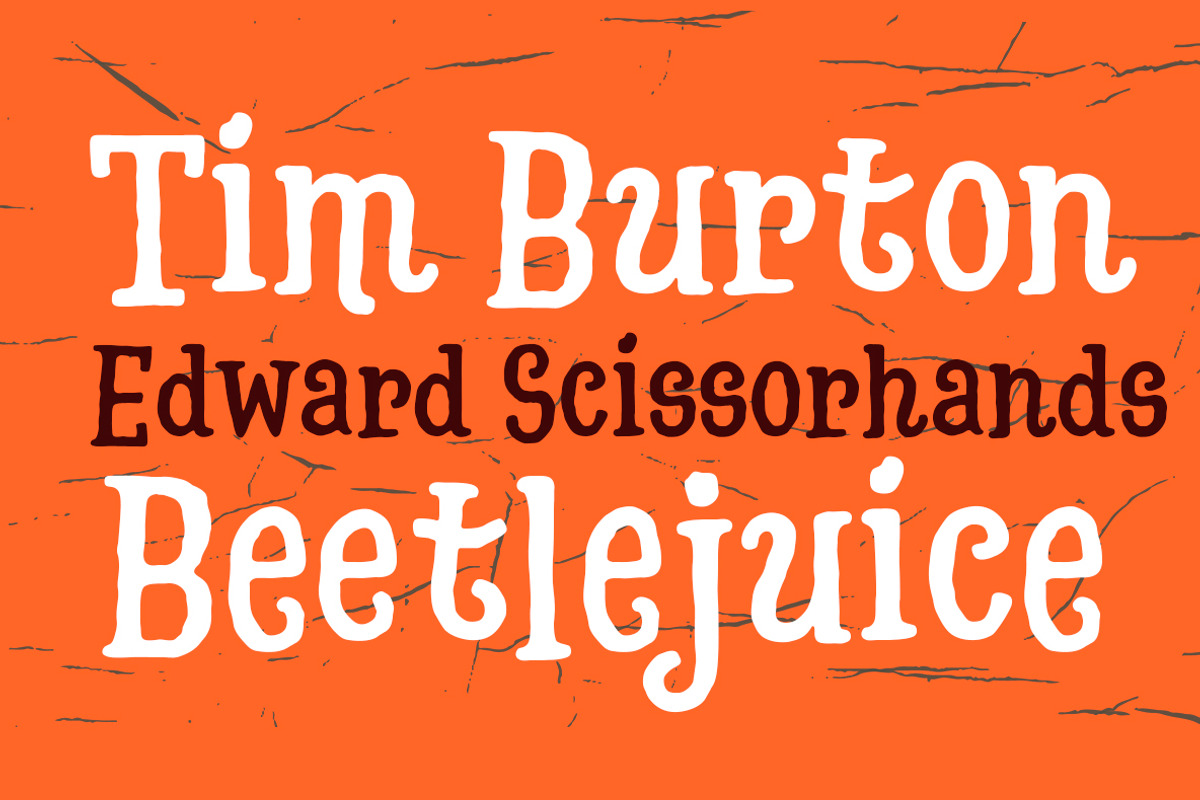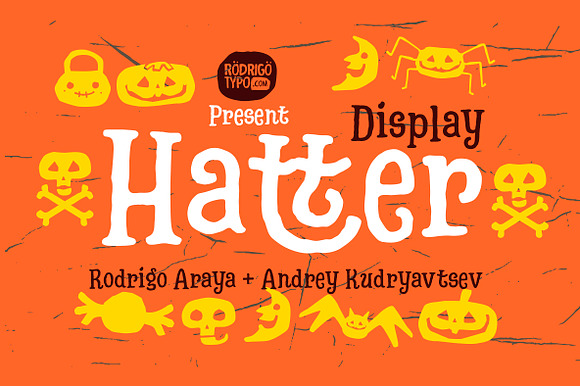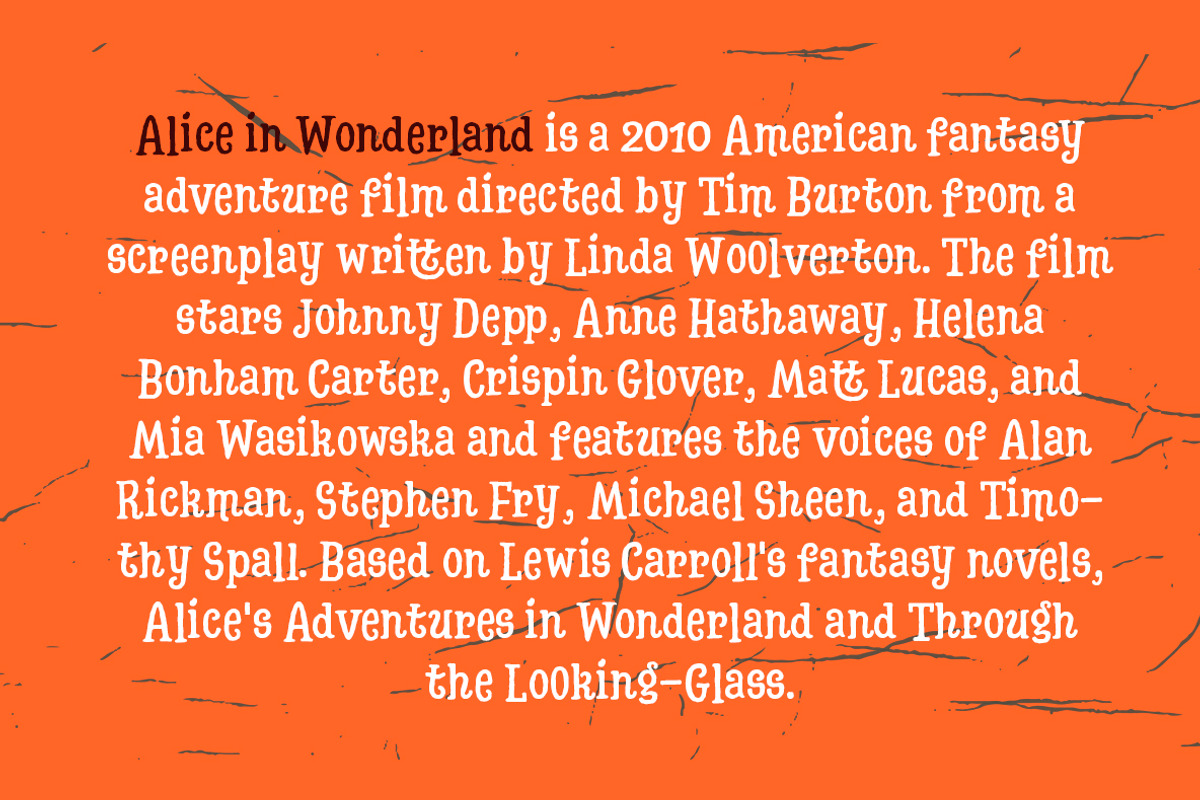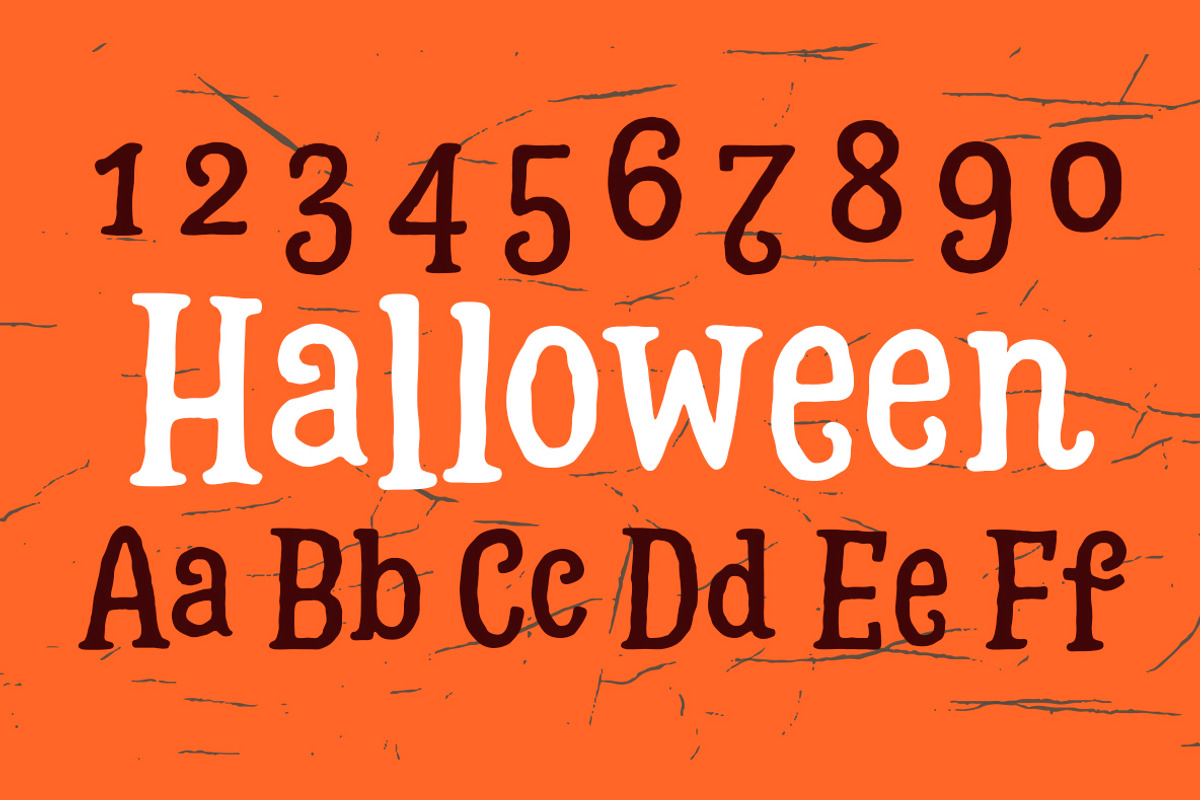
Hatter Display Font+Dingbats
Name: Hatter Display Year: 2017 Concept: Halloween, Tim Burton, Monster, Tales, witch Authors: Rodrigo Araya + Andrey Kudryavtsev
Why Hatter Display Font+Dingbats is worth a look
Hatter Display Font+Dingbats by Rodrigo Typo fits naturally into Branding, posters, packaging, typography.